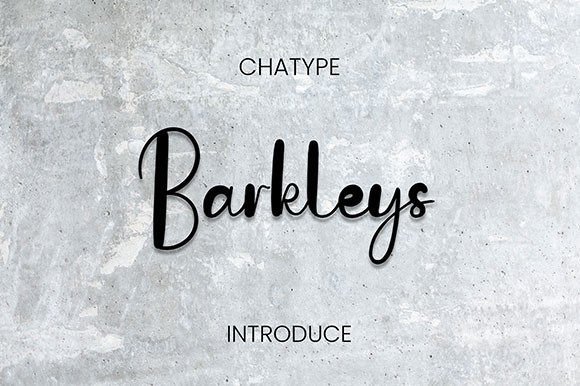
About Barkleys Font
Barkleys is a casual and neat handwritten script font. Whether you’re using it for crafts, digital design, presentations, or making greeting cards, this font has the potential to become your favorite go-to font, no matter the occasion!